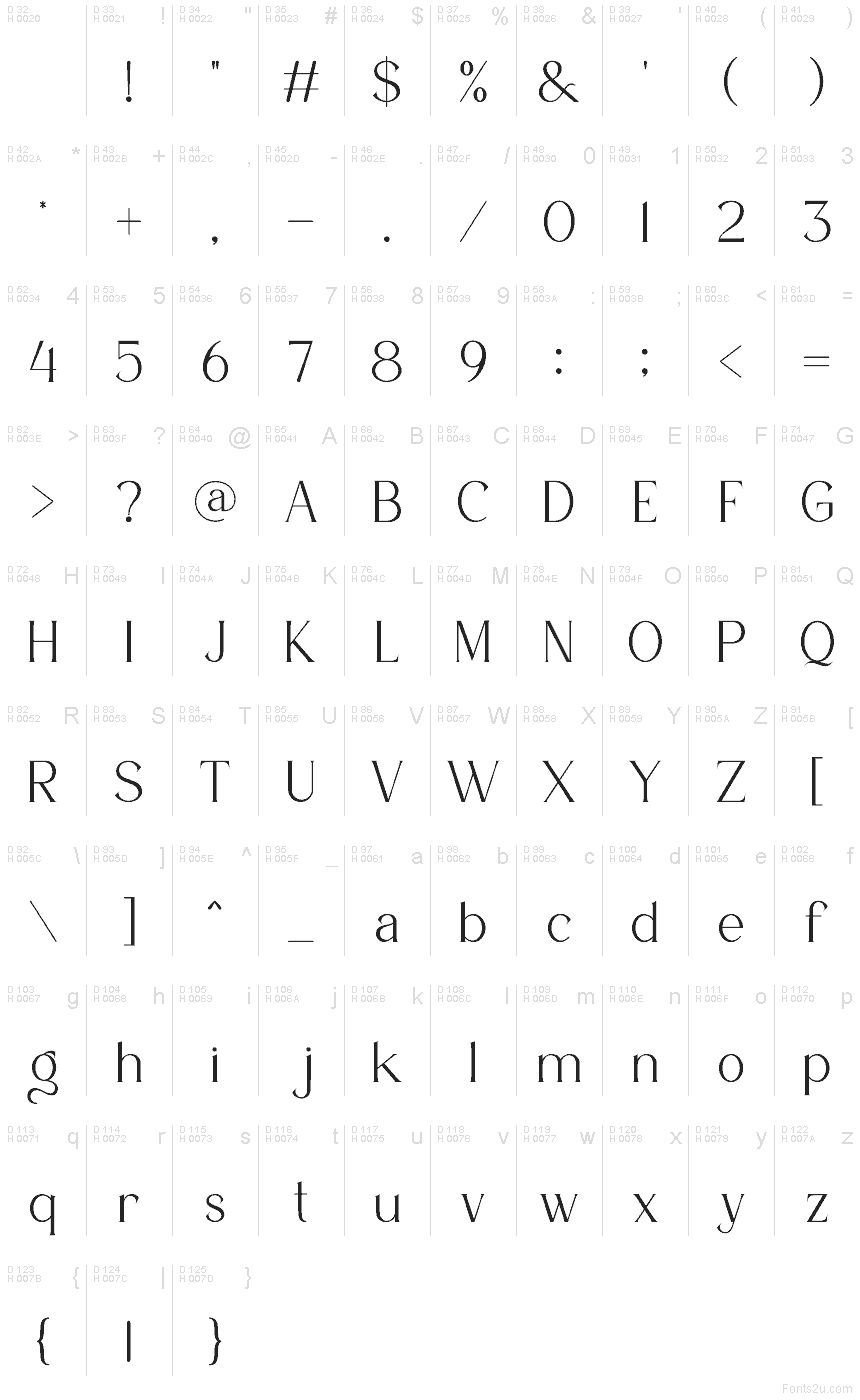
LeMaro
LeMaro font by ErmediaStudio is a free serif typeface. Its glossy, cut-glass verticals and whisper-thin hairlines bring a couture sheen, while the refined spacing keeps headlines crisp rather than fussy. There’s a poised rhythm to the strokes—sleek, slightly dramatic, and unmistakably editorial.
Using LeMaro, you’ll get standout results on fashion branding, magazine covers, beauty packaging, boutique logos, event posters, and luxe invitations. This free font thrives at large sizes where its contrast can breathe; add a touch of tracking for extra polish. For body copy or captions, pair it with a neutral grotesk or a soft humanist sans to keep the spotlight on LeMaro’s elegance.